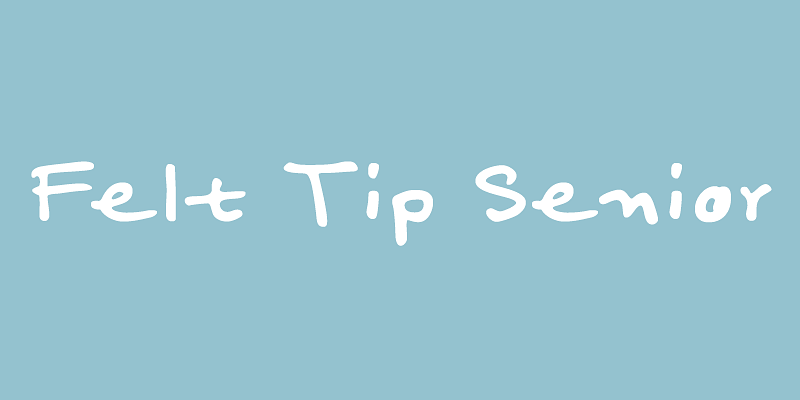
Felt Tip Senior Font Free Download is a realistic, handwritten typeface that captures the casual, natural look of writing with a felt-tip marker. With its slightly rough edges and smooth flow, Felt Tip Senior brings a personal, approachable touch to everything from notes and quotes to school projects, branding, packaging, and editorial content.
Designed to balance authenticity with legibility, this font mimics real handwriting while remaining clean and readable across both print and digital formats. It includes a full set of uppercase and lowercase characters, punctuation, numerals, and multilingual support, making it versatile for various design needs.